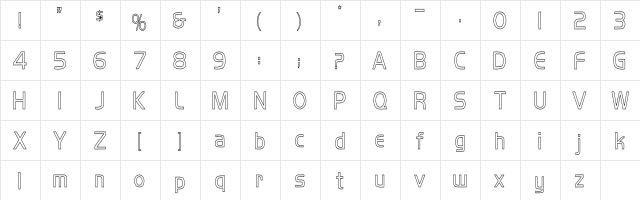
Koshgarian-LighHC Regular
Design Context for Koshgarian-LighHC Typeface
Koshgarian-LighHC is a composed and adaptable typeface that performs quietly and consistently across a wide range of design contexts.